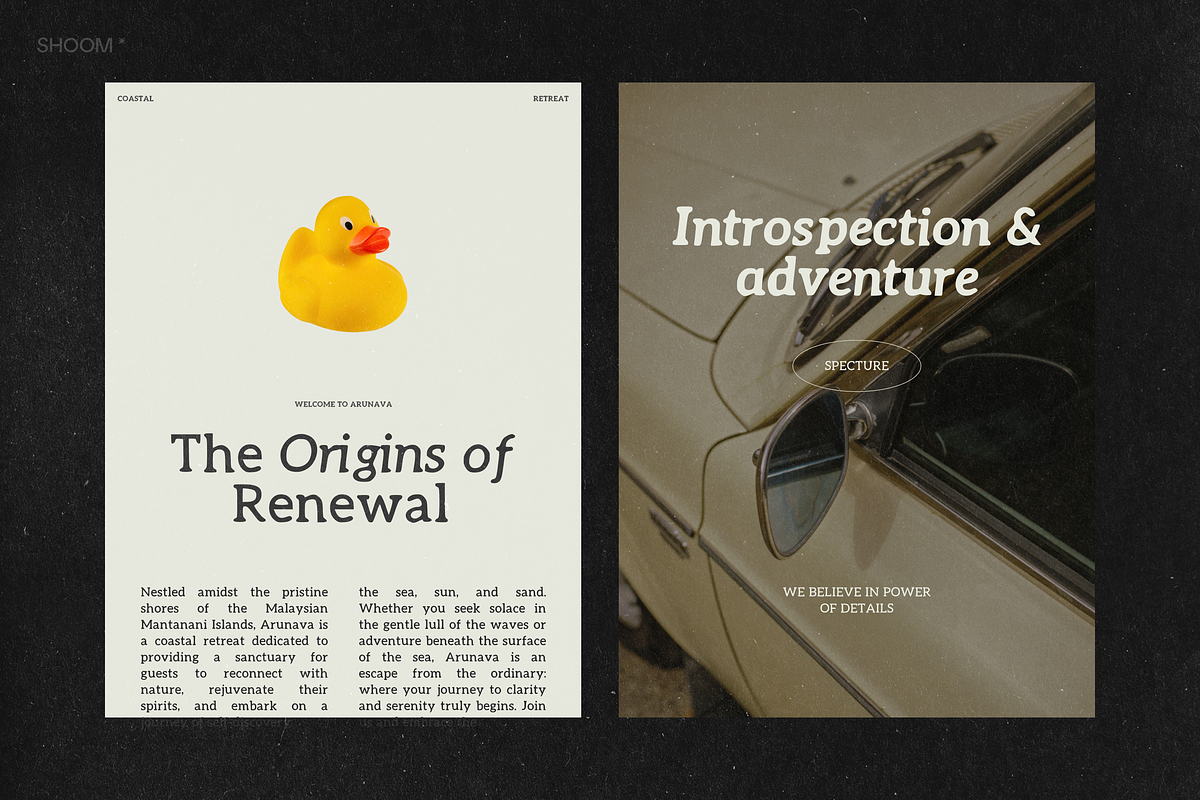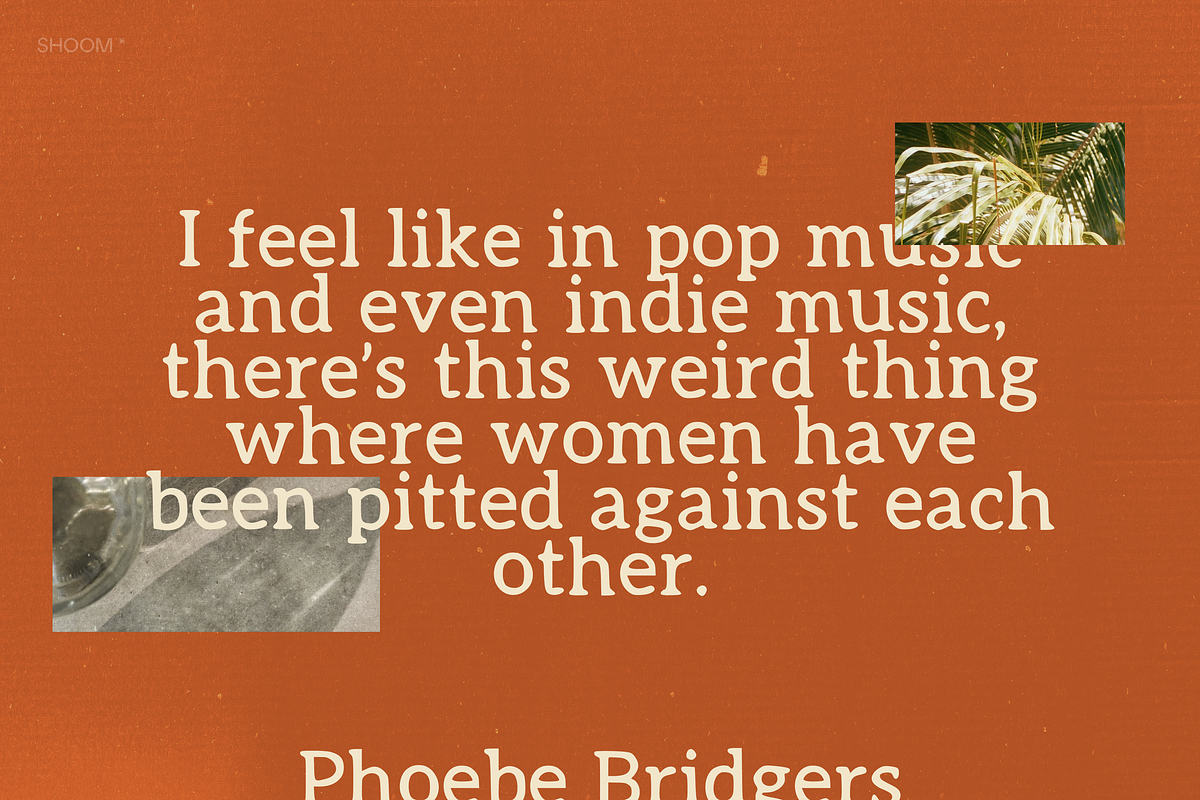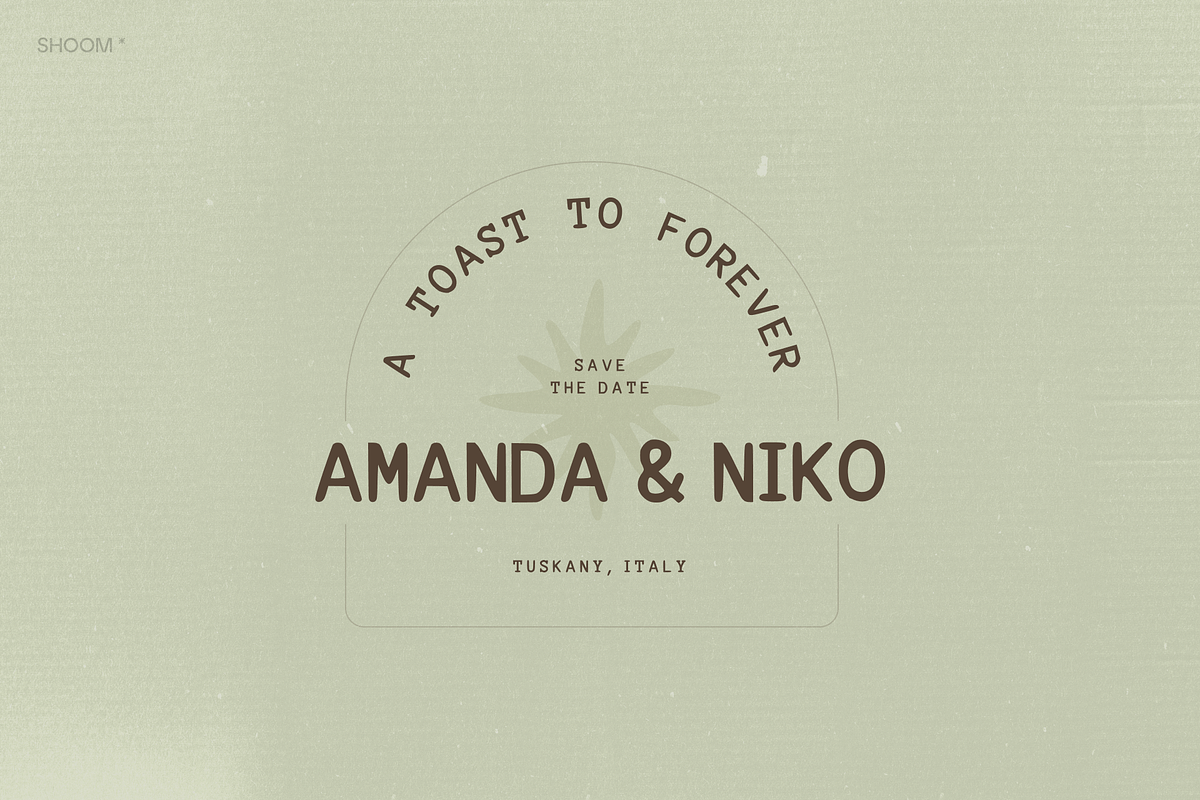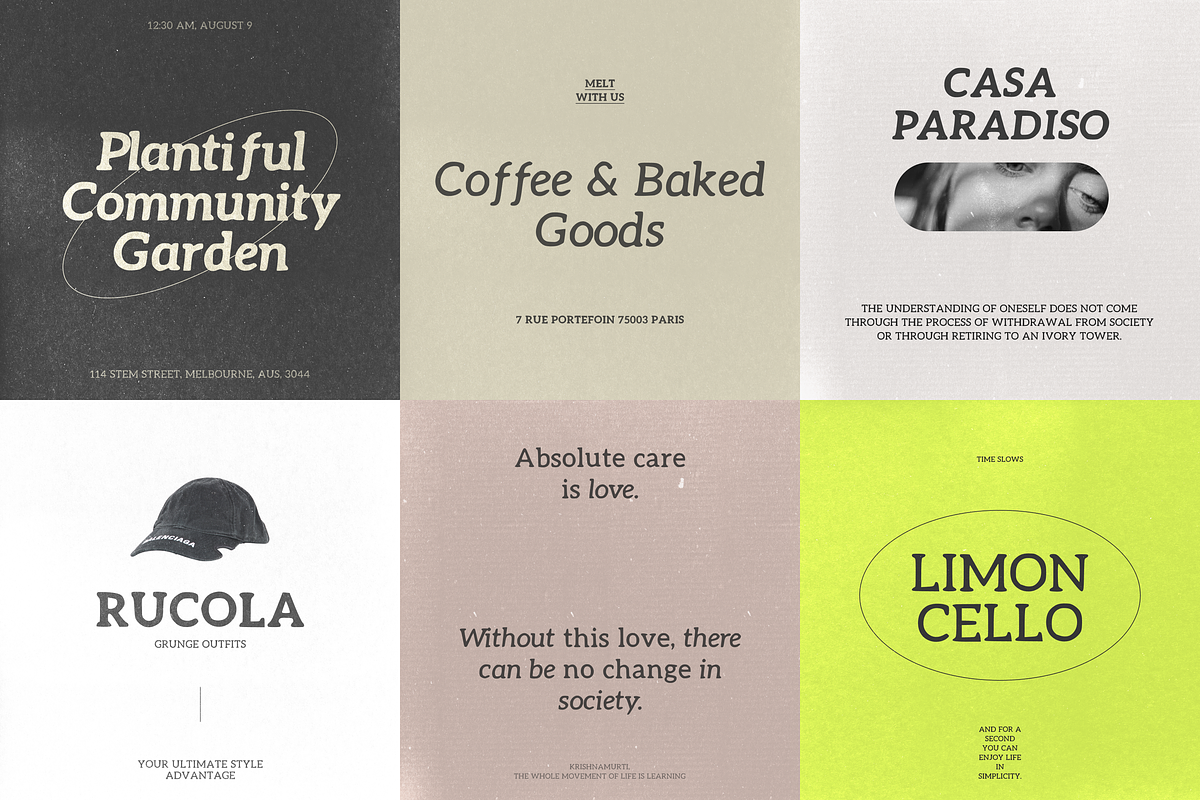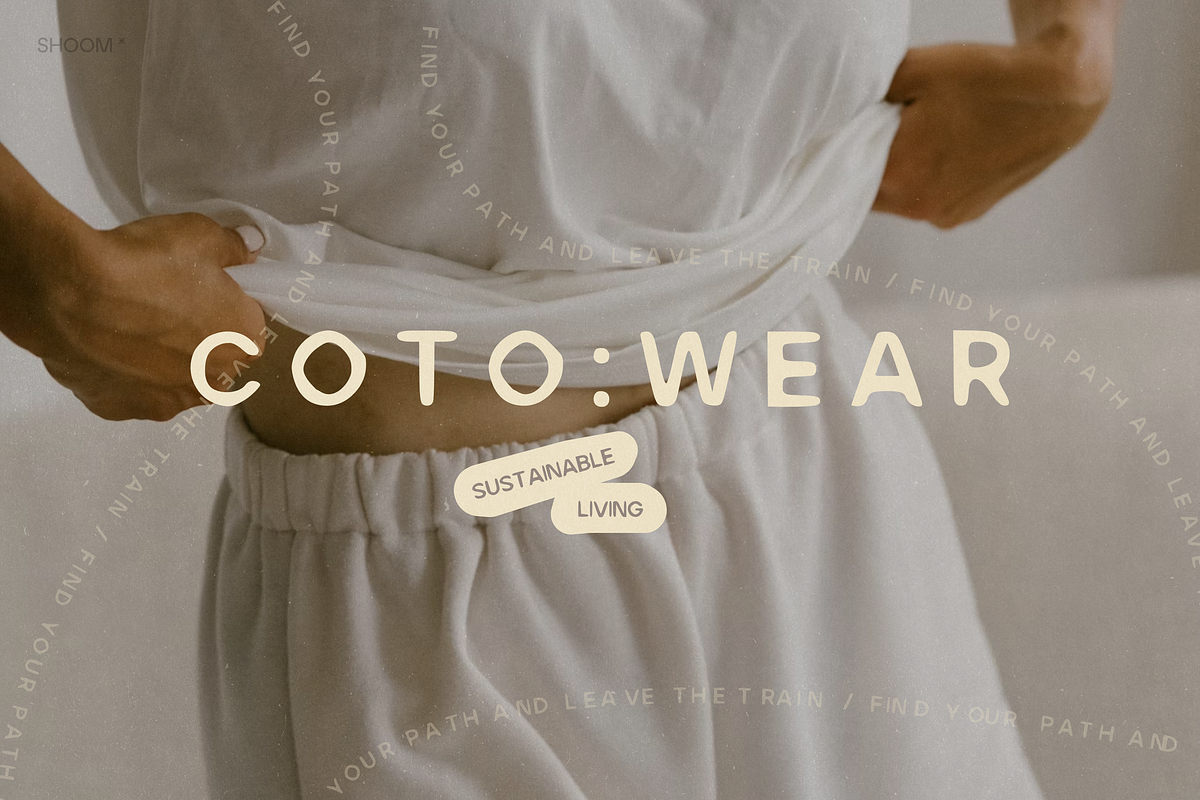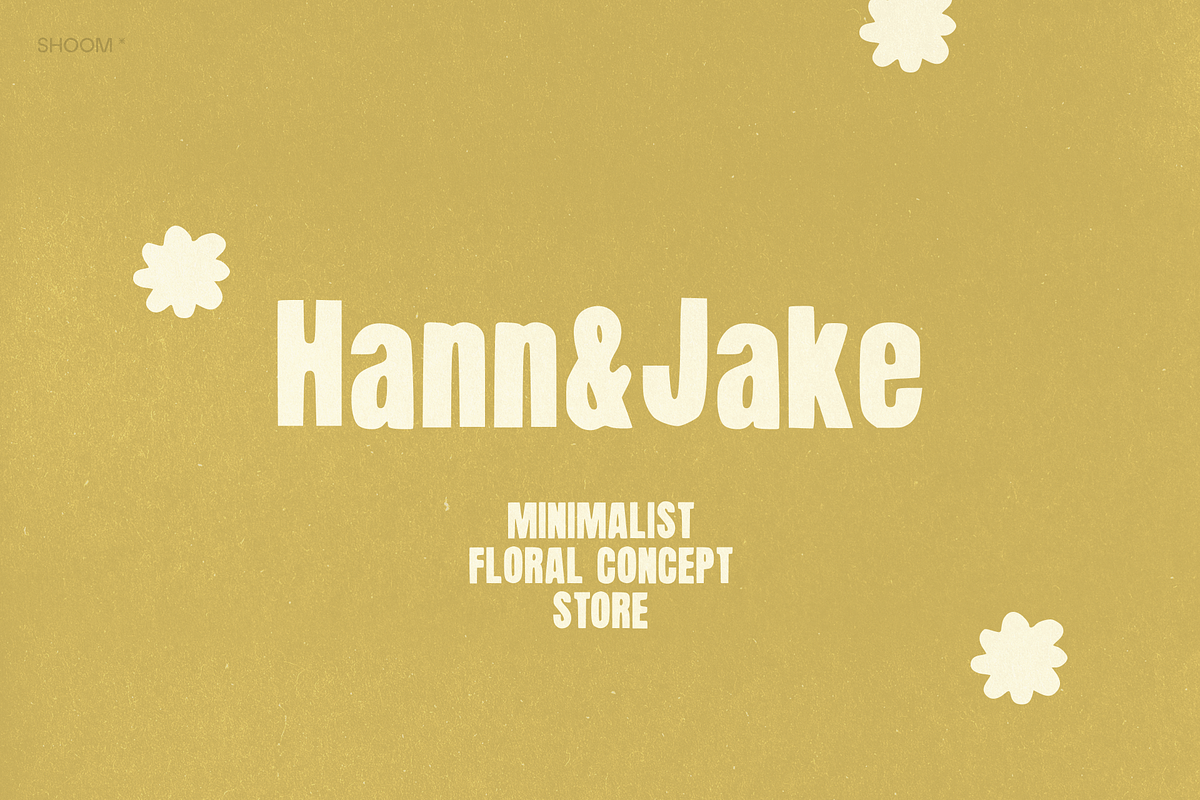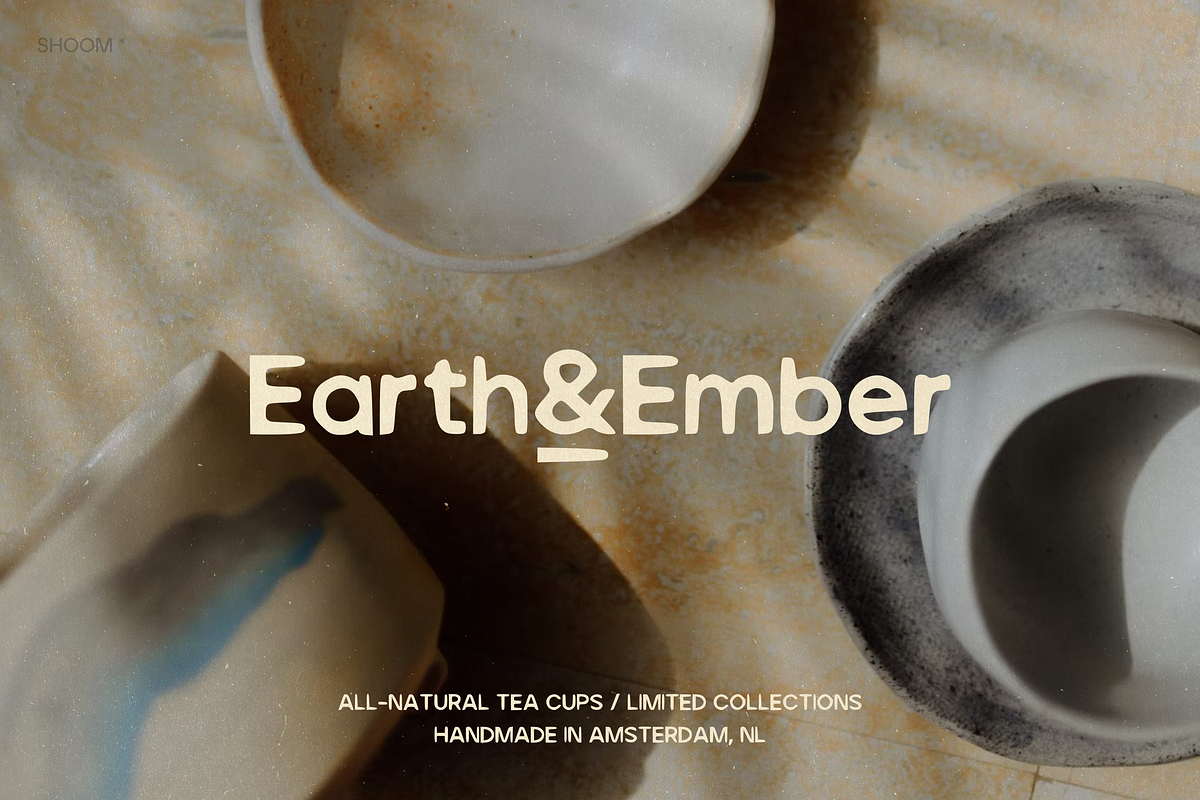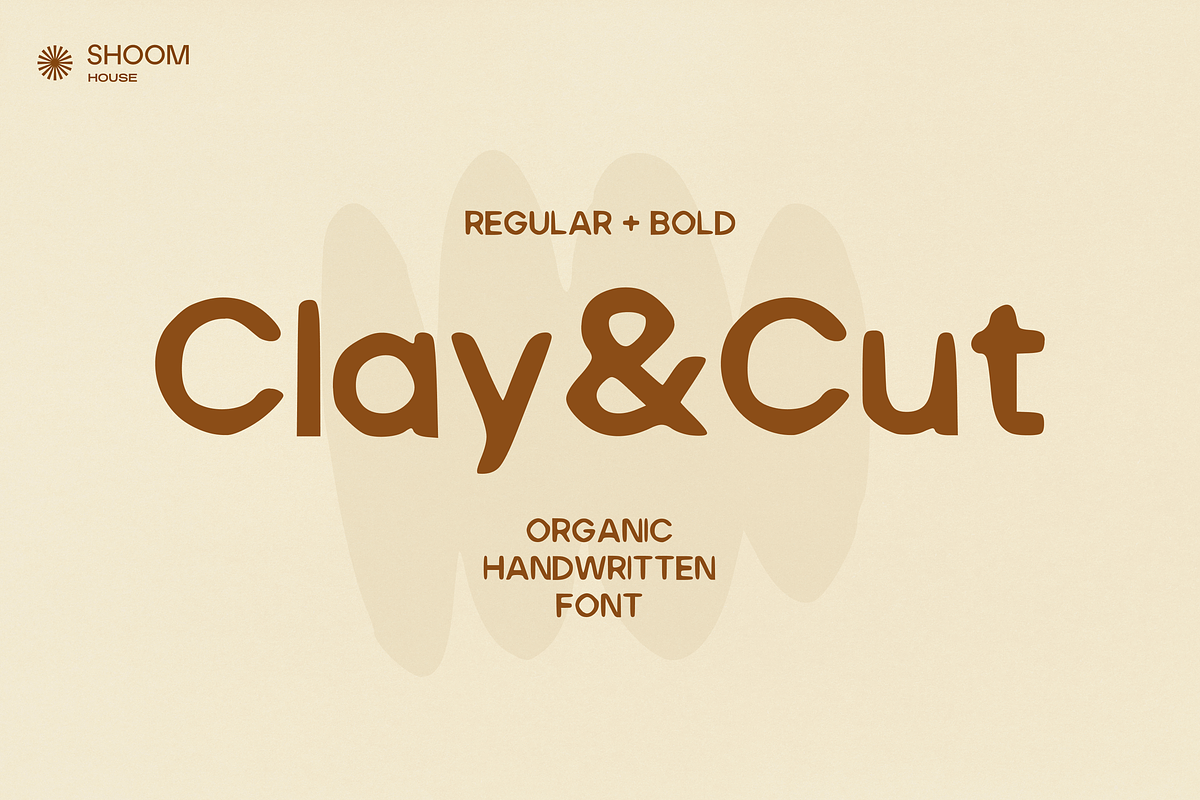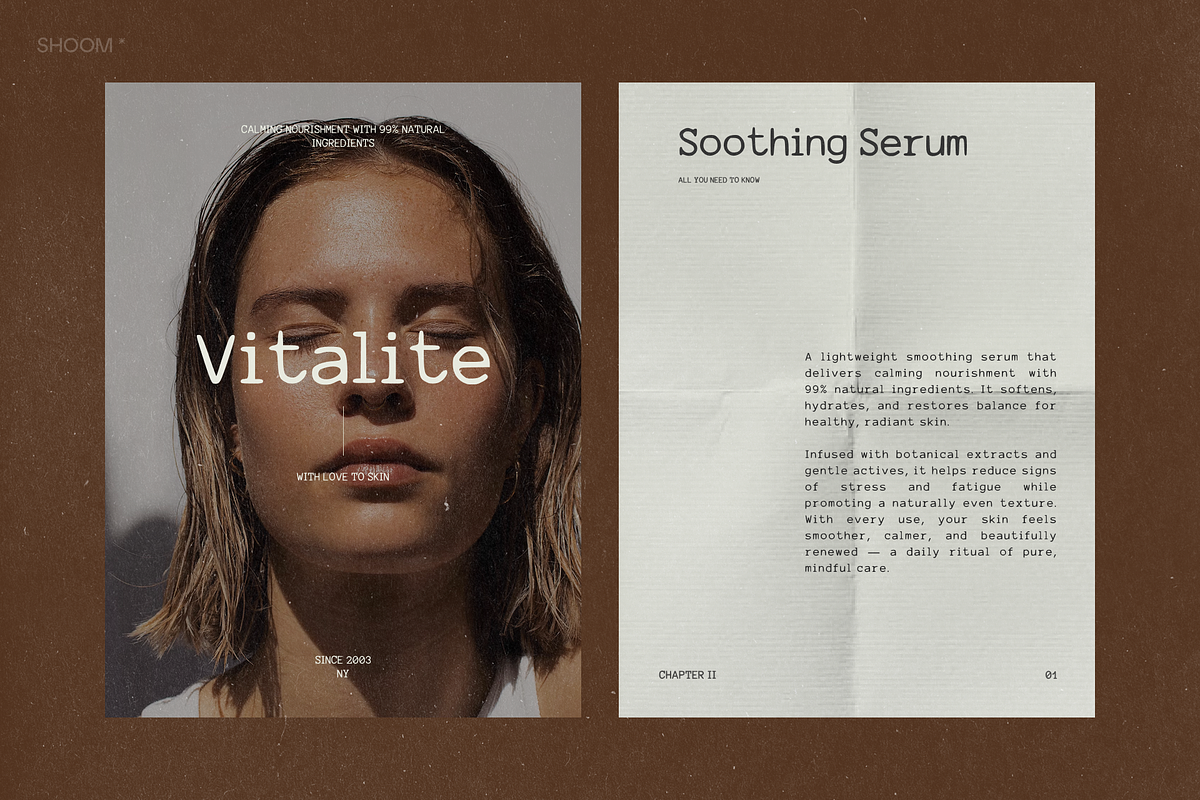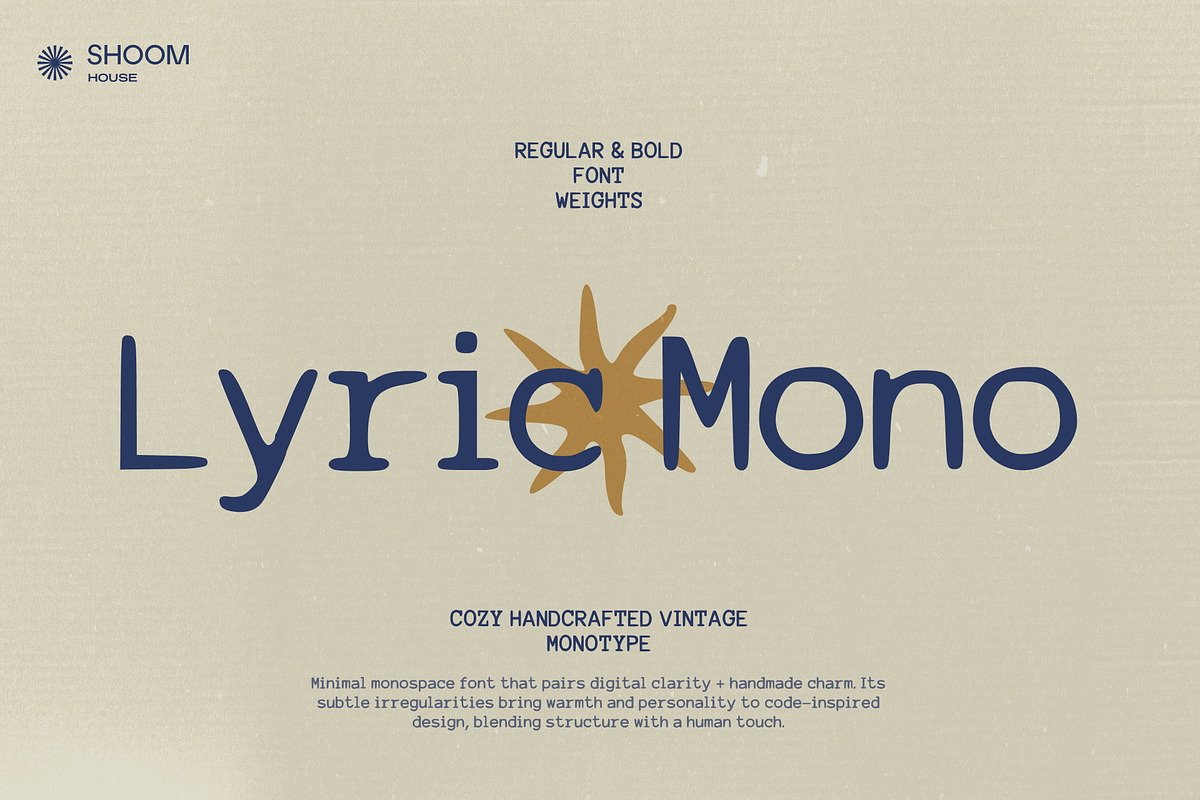
Hand Crafted Fonts Pack: x4 Fonts
Meet our bold font bundle that includes organic, natural vibes of hand crafted fonts. You'll get Serif and Sans Serif fonts that will bring unique appearance to your graphics. Perfect for identity creators, social media materials for aesthetic, modern projects. Explore the product covers and see for yourself what makes them special. Or just get inspired!